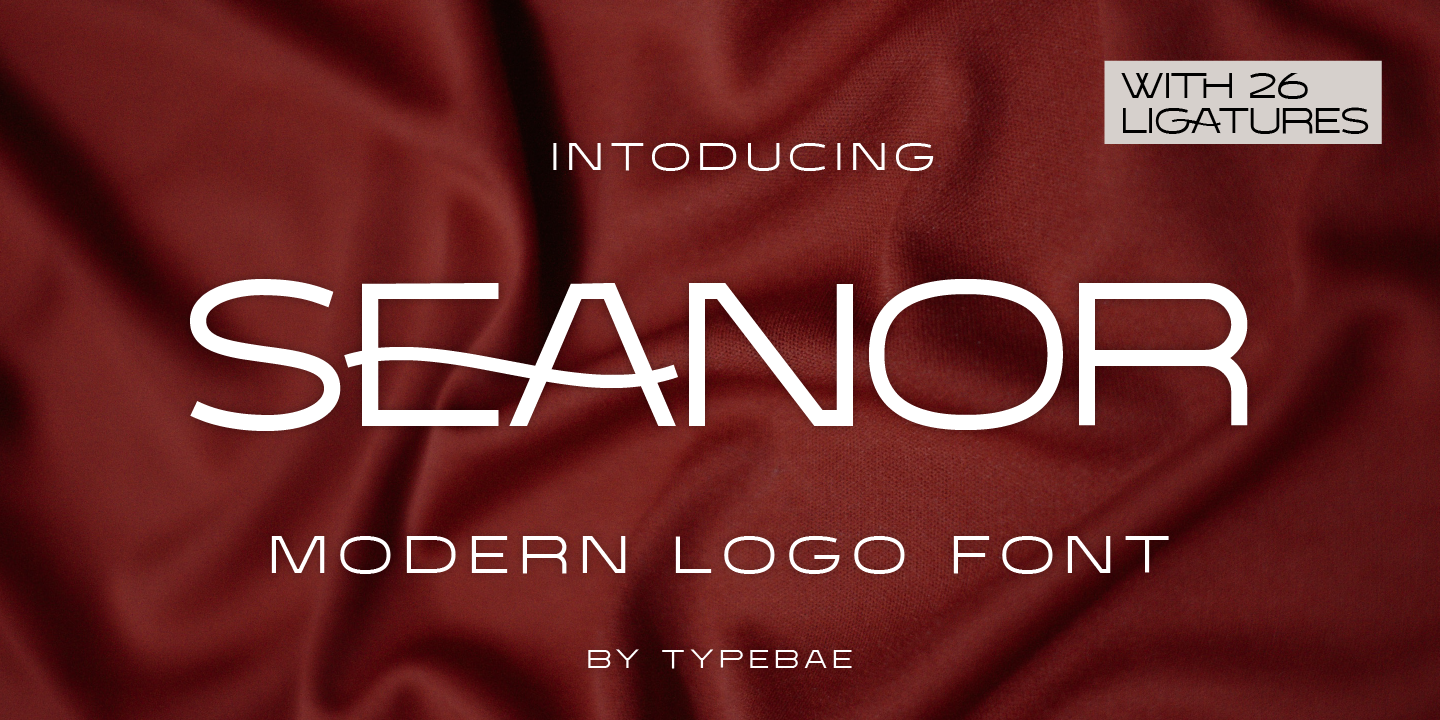
Seanor Font is ideal for maritime heritage museums, nautical equipment branding, sailing school materials, ocean exploration campaigns, coastal navigation services, seafaring adventure tourism, marine conservation projects, and traditional shipbuilding documentaries. This distinguished typeface brings maritime tradition and seafaring excellence to any design project celebrating naval heritage and the timeless relationship between humanity and the sea.
What makes Seanor Font exciting is its masterful embodiment of maritime tradition combined with contemporary navigation precision that perfectly captures the courage and expertise of experienced seafarers and ocean explorers. The sturdy letterforms feature nautical proportions and seaworthy reliability that create an unmistakably maritime appearance. Each character navigates with seasoned confidence, making it ideal for brands that represent maritime expertise, ocean mastery, and the enduring spirit of those who make their living from the sea.
The Seanor Font family typically includes regular and bold weights with complete uppercase and lowercase letters, numbers, punctuation marks, and maritime symbols. Many versions feature additional nautical decorative elements, sailing motifs, and oceanic symbols that enhance the seafaring aesthetic and provide creative flexibility for marine and coastal design applications.
Whether you're developing maritime service brands or creating ocean education materials, Seanor Font Free Download offers unmatched nautical authority and seafaring authenticity. This distinguished typography choice transforms ordinary text into maritime communications that resonate with audiences who appreciate ocean mastery and nautical traditions. The font's seaworthy construction ensures exceptional performance across maritime applications while maintaining its distinctive seafaring character that makes every design project feel like a voyage with experienced sailors who navigate by stars and read the ocean's moods with generations of inherited wisdom.